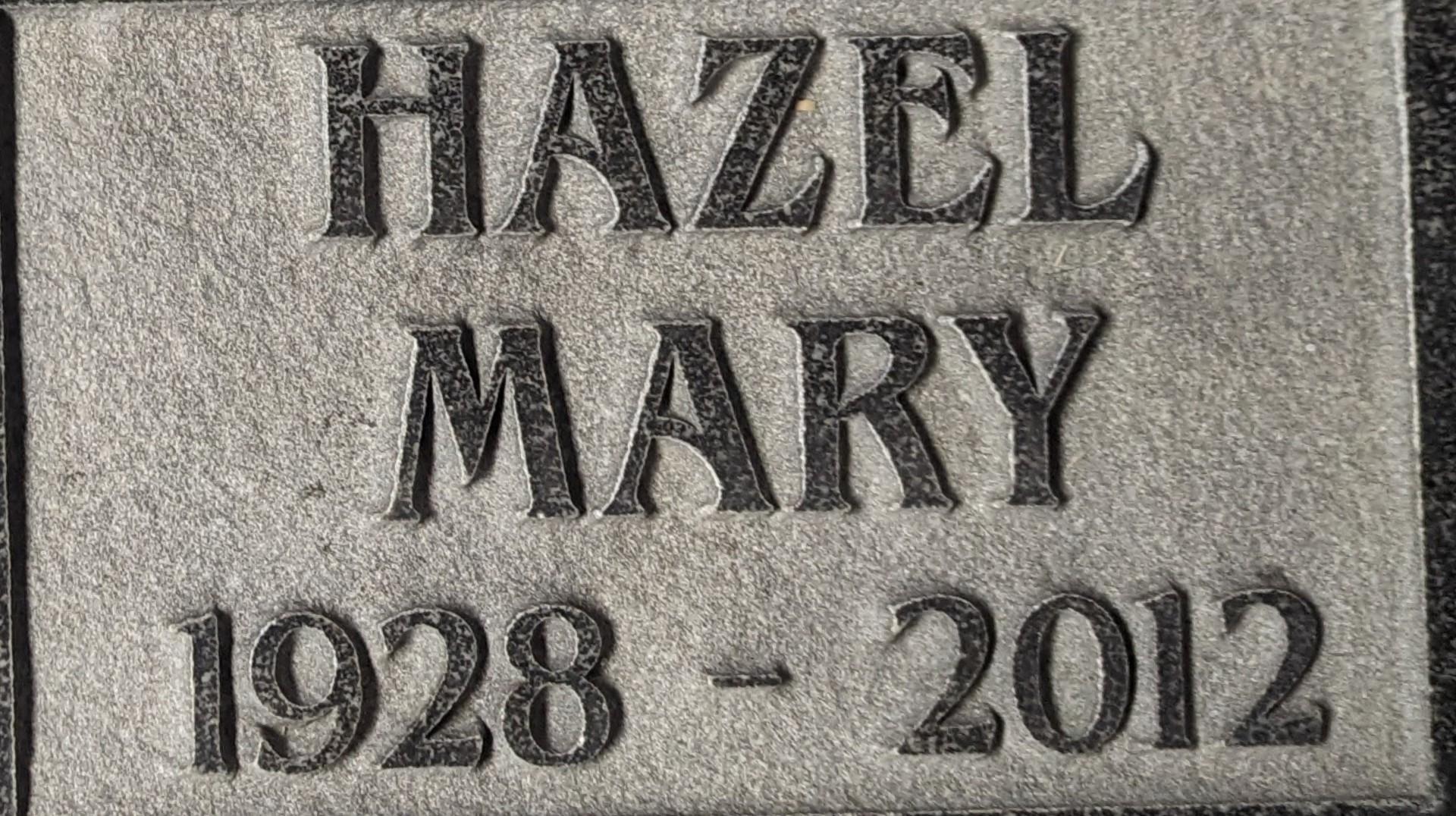
I cannot, for the life of me, find a match for this. Does anyone know what font it is?
Hello, this is a version of a font called Benguiat Bold Condensed, but it looks like it has been hand drawn, or at least modified. The capital ‘M’ has been changed.